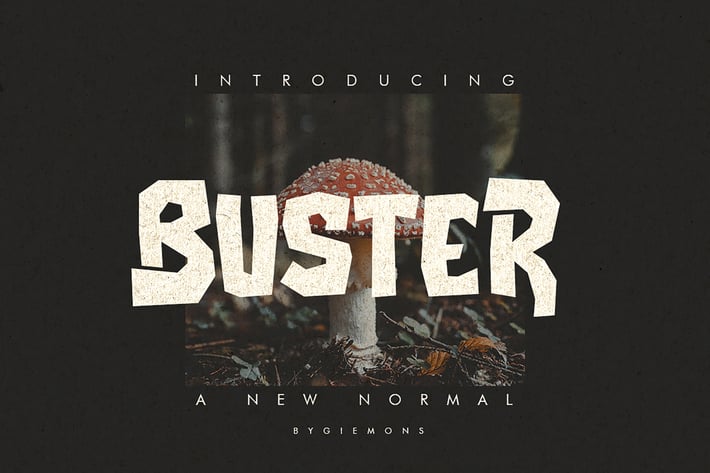
Buster Typeface
a Buster Typeface is Display Font, Unique font and BOLD. Can make it easier to convey the message in your design. Use for awesome display, Logo, labeling, clothing, movie sceen, poster, movie title, gigs, album covers, logos, and much more.
Uppercase & Lowercase (capital version)
Numerals & Punctuations